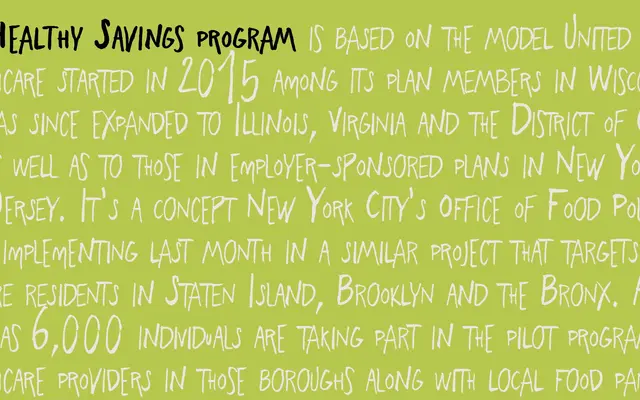
Freehand Brush
Zetafonts · Debora Manetti, Francesco Canovaro · 2018
A brush script type system that uses OpenType ligature substitution to randomise character variants, producing a convincingly uneven, handmade appearance.
Designed by Debora Manetti and Francesco Canovaro, the system centres on a wide freestyle brush cursive with over 400 character alternates and double-letter ligatures to avoid the repetitive look typical of digital script fonts. A companion Brush Easy version disables the substitutions for consistent output, while two Blockletter weights provide contrasting upright styles for mixed typesetting. Two icon sets, one for food and one for UI navigation, round out the six-style family. Coverage extends to 201 Latin-script languages.
A freestyle brush cursive that uses OpenType ligature substitution to randomise character alternates, mimicking the irregularity of genuine handmade brush lettering. The system also includes a complementary blockletter subfamily.